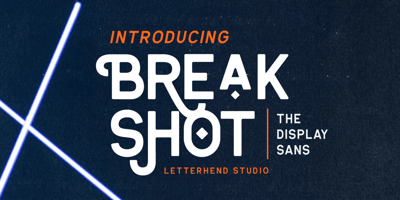
Breakshot
Breakshot font
Breakshot Font Family was designed by Hendry Juanda and published by Letterhend. Breakshot contains 2 styles and family package options. Break Shot is a bold display sans font. This type of font perfectly made which is need a standout font, and the other various formal forms such as invitations, labels, logos, magazines, books, greeting / wedding cards, packaging, fashion, make up, stationery, novels, labels or any type of advertising purpose.Features : regular & stamp numbers and punctuation multilingual ligatures PUA encoded We highly recommend using a program that supports OpenType features and Glyphs panels like many of Adobe apps and Corel Draw, so you can see and access all Glyph variations.